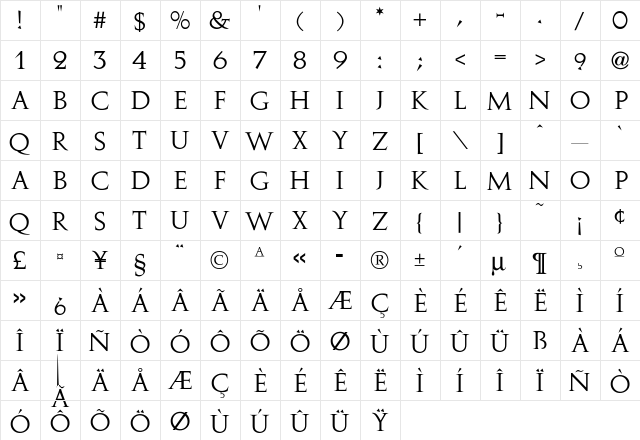
Augustus Regular
Design Context for Augustus Typeface
Augustus offers clean, dependable letterforms without strong stylistic allegiance, making it a practical choice for designers who need flexibility.